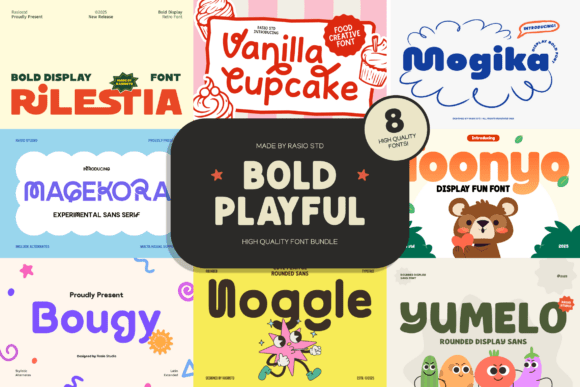
Unleash Your Inner Playfulness with the Bold Playful Bundle Font
Do you remember the rush of excitement you felt as a child when you got your first coloring book? The vibrant colors, the whimsical illustrations, and the sheer joy of bringing a blank page to life with your imagination? That’s the same feeling you can evoke in your designs with the Bold Playful Bundle Font.
This delightful collection of fonts is specifically designed to bring a smile to your audience’s faces. With its bold, rounded, and playful typefaces, you can add a dash of fun and personality to your projects. Whether you’re working on a kids-related campaign, creating a playful brand identity, or simply want to add some whimsy to your social media content, the Bold Playful Bundle Font is the perfect companion.
Bold Playful Bundle Font Key Features
- Unique Characteristics: Playful, bold, and energetic font with a mix of modern and vintage styles, perfect for creating attention-grabbing headlines and titles
Bold Playful Bundle Font Review
Overall, I’d say the Bold Playful Bundle Font is a solid addition to any designer’s toolkit. The font is well-suited for projects that require a fun, energetic vibe.
- ✨ Unique character set: The font offers a wide range of characters, including special symbols and glyphs, which can be a big plus for designers looking to add some personality to their work.
- ✨ High-quality glyphs: The font’s glyphs are well-designed and look great at various font sizes.
- ✨ Good for headings: The font is perfect for creating attention-grabbing headings and titles.
- ⚠️ Limited legibility at small font sizes: While the font looks great at larger sizes, it can be a bit difficult to read at smaller font sizes.
- ⚠️ Not ideal for body text: The font’s playful style can make it challenging to read large blocks of text.
Overall, I’d recommend the Bold Playful Bundle Font for designers who need a fun, energetic font for headings and titles. Just be aware of its limitations and use it accordingly.
The Bold Playful Bundle Font is perfect for creating bold and playful designs, such as:
- Birthday invitations and party decorations.
- Children’s book covers and illustrations.
- Food and drink branding and packaging.